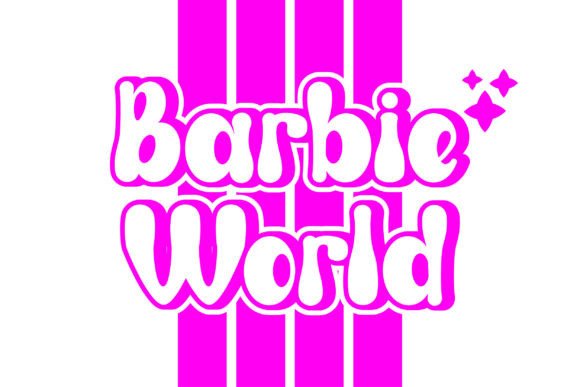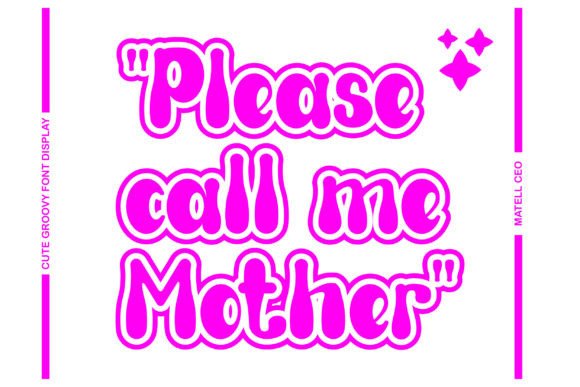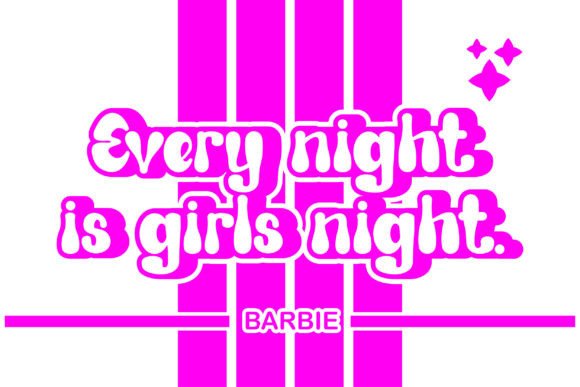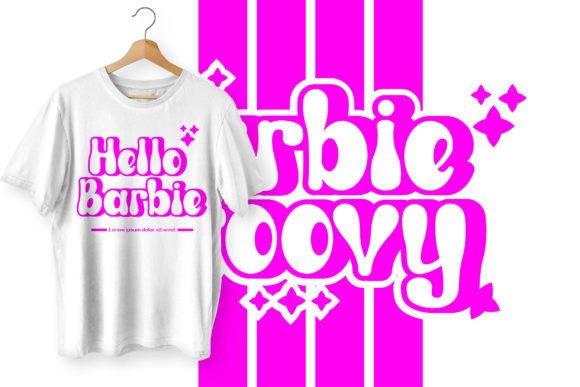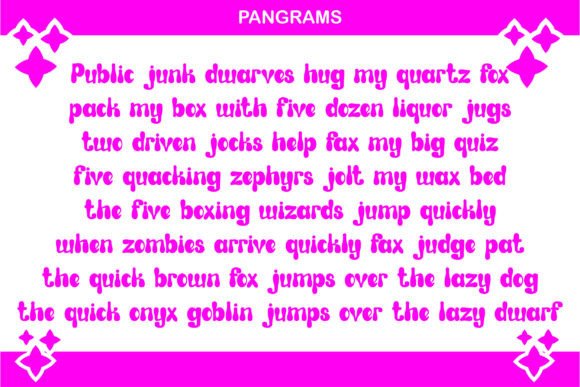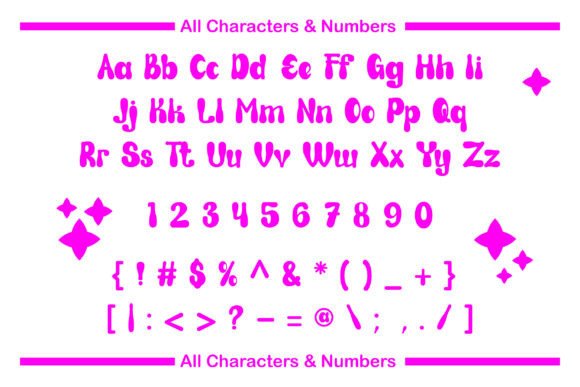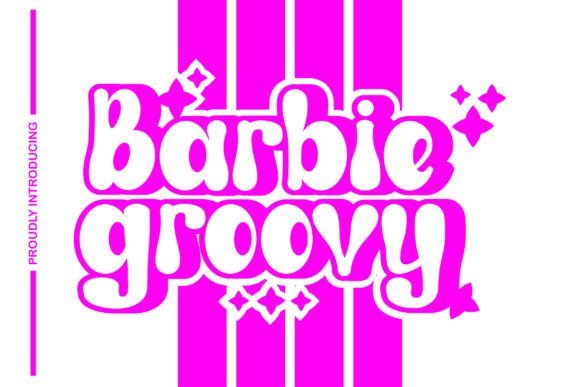
Get Ready to Groove with Your Designs!
Remember the feeling of rummaging through your grandmother’s attic, discovering a box of vintage clothes and accessories that spark your creativity? That’s exactly what happens when you work with the perfect font – it’s like finding that hidden treasure that sets your imagination ablaze!
Introducing the Barbie Groovy Font, a stylish display font that adds an elegant touch to your designs. This groovy font is perfect for creating cute and stunning projects, from T-shirts to wedding invitations, and everything in between. Whether you’re a seasoned designer or a budding creative, the Barbie Groovy Font is sure to make your ideas stand out and shine.
As a designer, you know how valuable the right font can be in bringing your vision to life. The Barbie Groovy Font is a game-changer, offering a unique and stylish look that will elevate your designs to the next level. So why settle for ordinary when you can have extraordinary with the Barbie Groovy Font?
Barbie Groovy Font Key Features
- Font Family: Barbie Groovy Font is a unique, hand-drawn font designed to evoke a groovy and playful feel.
- Unique Characteristics: The Barbie Groovy Font features bold, colorful, and playful letterforms, with a distinctive ’60s-inspired aesthetic.
Barbie Groovy Font Review
Overall, I was intrigued by the Barbie Groovy Font, but my experience was a mixed bag. Here are my thoughts:
- Unique and playful vibe: The font’s groovy aesthetic definitely captures the essence of the 1960s and 1970s.
- Fun and whimsical feel: The font’s irregularities and loose connections to classic fonts add a touch of personality to any design project.
- Perfect for retro-themed designs: If you’re working on a project that requires a nostalgic feel, the Barbie Groovy Font is an excellent choice.
- Limited legibility: The font’s irregularities and loose connections to classic fonts can make it difficult to read, especially at smaller font sizes.
- Limited font sizes: The font seems to be optimized for larger font sizes, and it may not scale well for smaller text.
- Not suitable for formal designs: The font’s playful and whimsical feel makes it unsuitable for formal or professional designs.
While the Barbie Groovy Font has its limitations, it’s a great choice for designers looking to add a touch of personality to their retro-themed designs. However, it may not be the best choice for more formal or professional projects.
The Barbie Groovy Font is ideal for creating retro-inspired designs, graphics, and text elements. Use it for:
– Custom logos and branding materials
– Graphic novels and comics
– Retro-themed party invitations and decorations
– Any project that requires a fun, playful, and nostalgic vibe